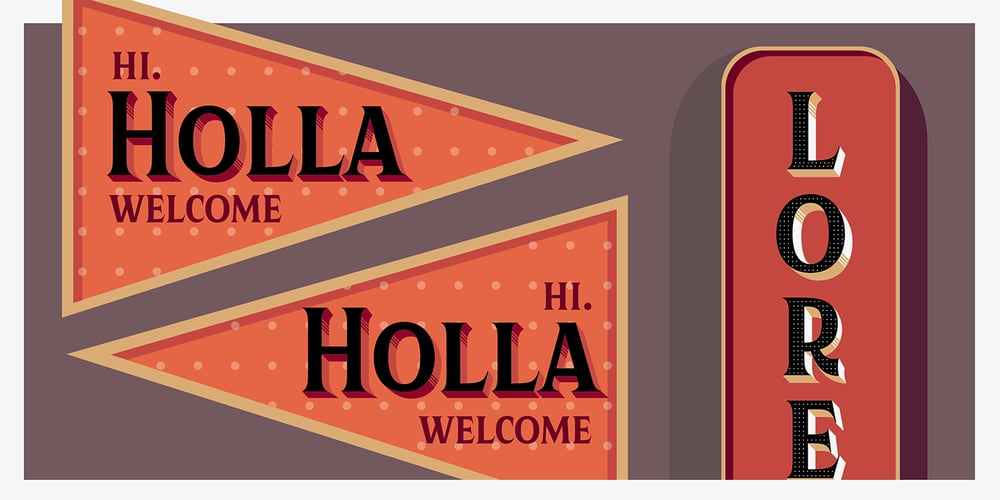
Kertayasa
Kertayasa font
Kertayasa Font Family was designed by Fadhl Waliy ul Haqq and published by Akufadhl. Kertayasa contains 10 styles and family package options. Kertayasa is a layered typeface inspired by an old signage and vintage letter painting. It consists of 10 layers, a wide support of latin languages, and some alternates. You will imbue beautifully vintage display typography in anything – including editorial and packaging – which you might create.